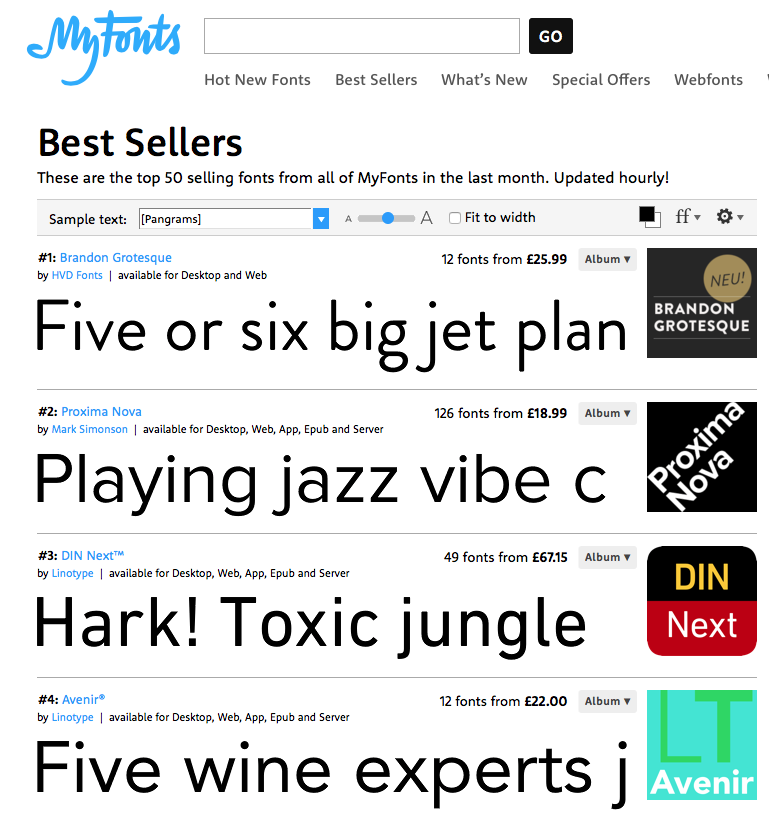
It’s far similar to a hybrid of futura and akzidenz grotesk, attached with this font to get a geometric look and use it to design amazing designs. Proxima nova alt condensed bold.otf.
Proxima nova font download adobe. I just did a test and activated proxima nova from creative cloud (proxima nova regular, proxima nova italic, and proxima nova bold), and created a simple test document and published it to pdf with framemaker 2019 (update 2) via the new pdf engine. It has one of the neatest and defined characters that can easily utilize in both small screen and big. Download proxima nova font fonts free for your own design projects both for personal and professional use and create awesome logos, banners for clients
Proxima nova font free download. 'ss20' provide a mechanism for glyphs in these sets to be associated via gsub lookup indexes to default forms and to each other, and for users to select from available. Each width consists of 16 fonts—seven weights with matching italics.
The proxima nova family members is actually a complete remodeling of proxima sans (1994). Fm bindumathi free download proxima nova font for adobe easyworship 2009 build 2.4 download bullet 3d girl proxima nova font for adobe premiere pro; Proxima soft (2017) is a rounded version of proxima nova.
Examples of fonts including stylistic sets are zapfino linotype and adobe's poetica. Proxima nova font family with 3 widths: This font is a highly used typeface on websites.
Basic, more fonts proxima nova font free for maс os: Even the proxima nova family unit is actually a comprehensive renovation of proxima sans (1994). Proxima nova font free download.
Proxima nova, proxima nova condensed, and. The proxima nova font family is a complete reworking of proxima sans (1994). Adobe fonts partners with the world’s leading type foundries to bring thousands of beautiful fonts to designers every day.
Proxima nova, proxima nova condensed, and proxima nova further condensed. Proxima nova font free download. The proxima nova family is a complete reworking of proxima sans (1994).
Introducing proxima nove font that was published in 2005, this is a great famous typeface that was designed by mark simonson. September 11, 2021 by eduard hoffmann. The proxima sans comprises 3 widths, including proxima nova condensed, proxima nova, and proxima nova further condensed.